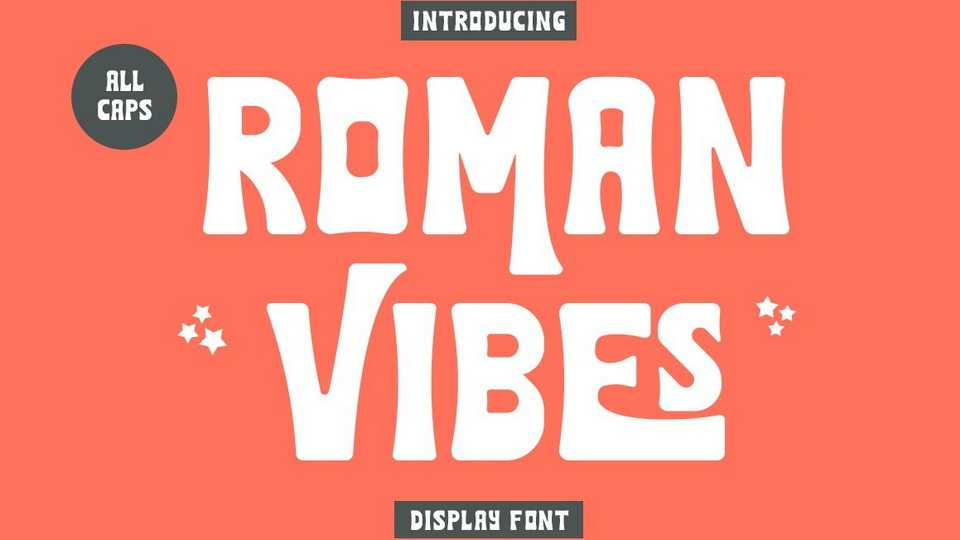
Download Roman Vibes font, a vintage display typeface with fun and playful character. Roman Vibes font can be used for vintage design and also modern artworks.